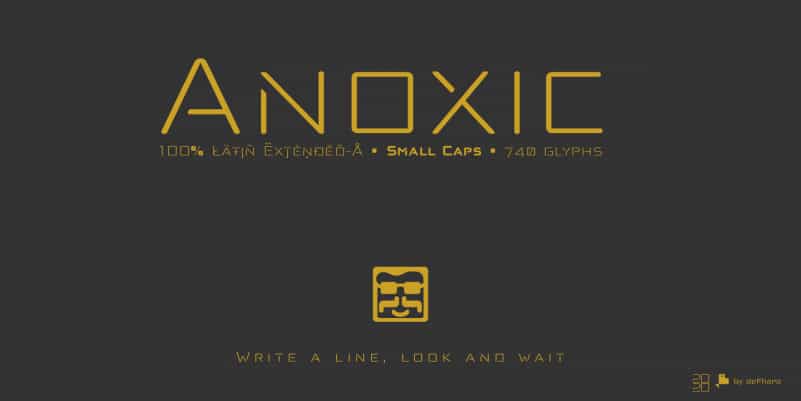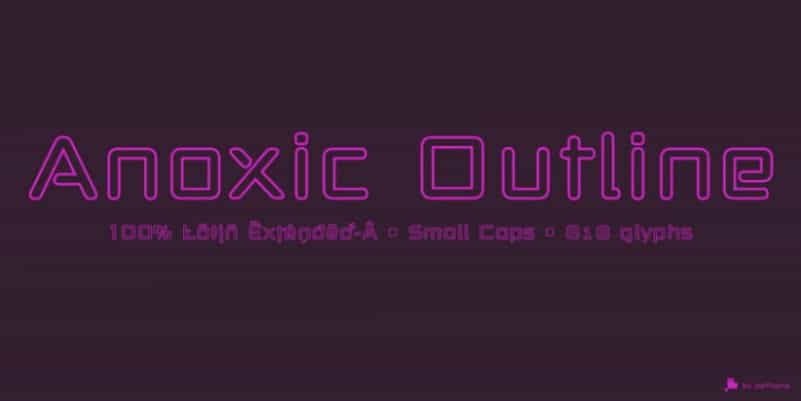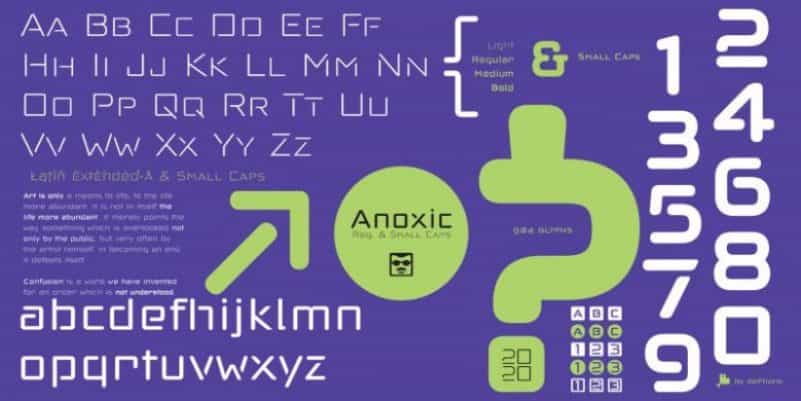
Anoxic is a Semi-Stencil typeface family with a rounded finish with 16 styles in 4 families, Roman, Small Caps, Outline & Italic, including small letters, 9 number sets and 3 uppercase letters, plus advanced Open Type functions.